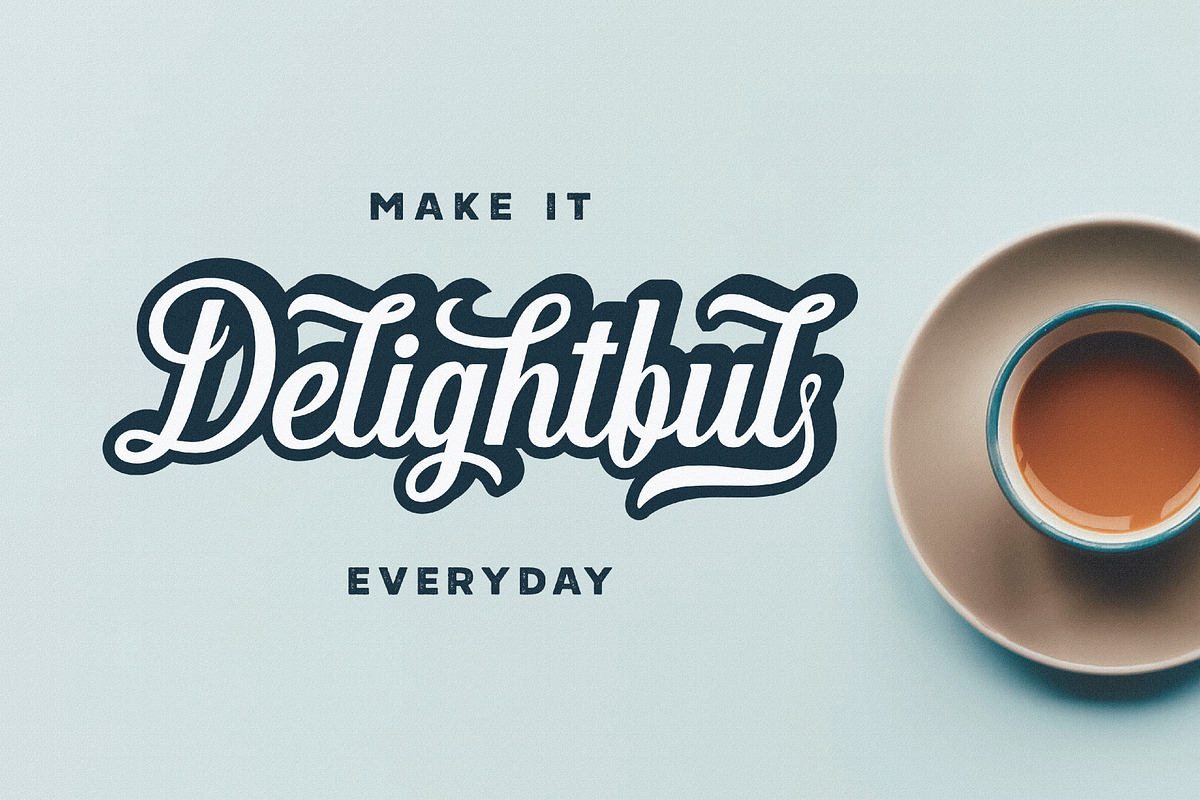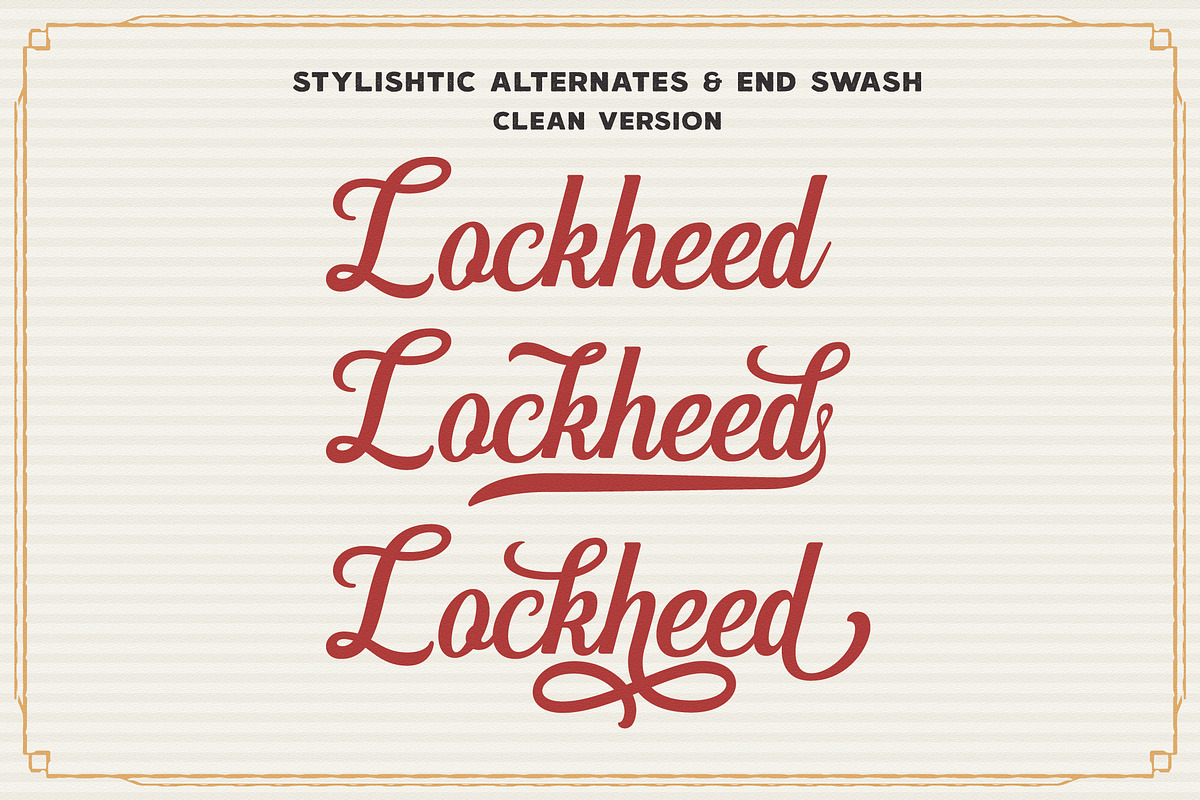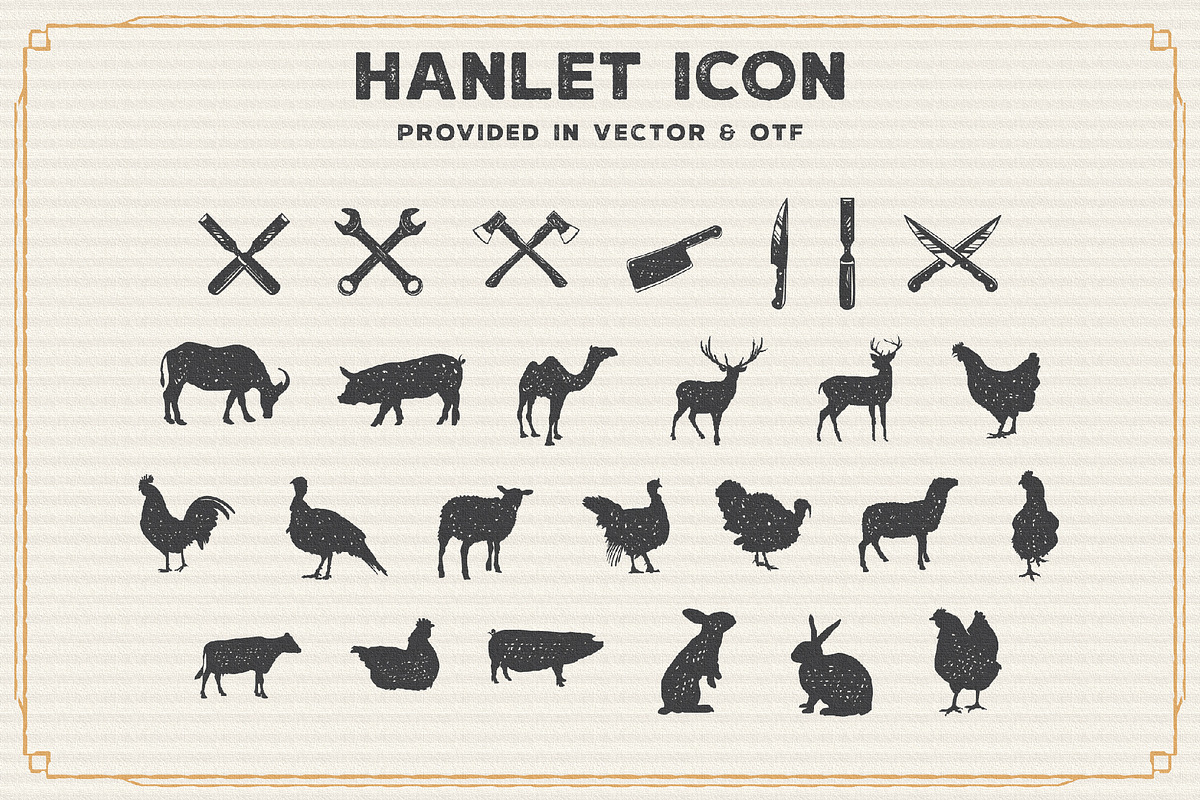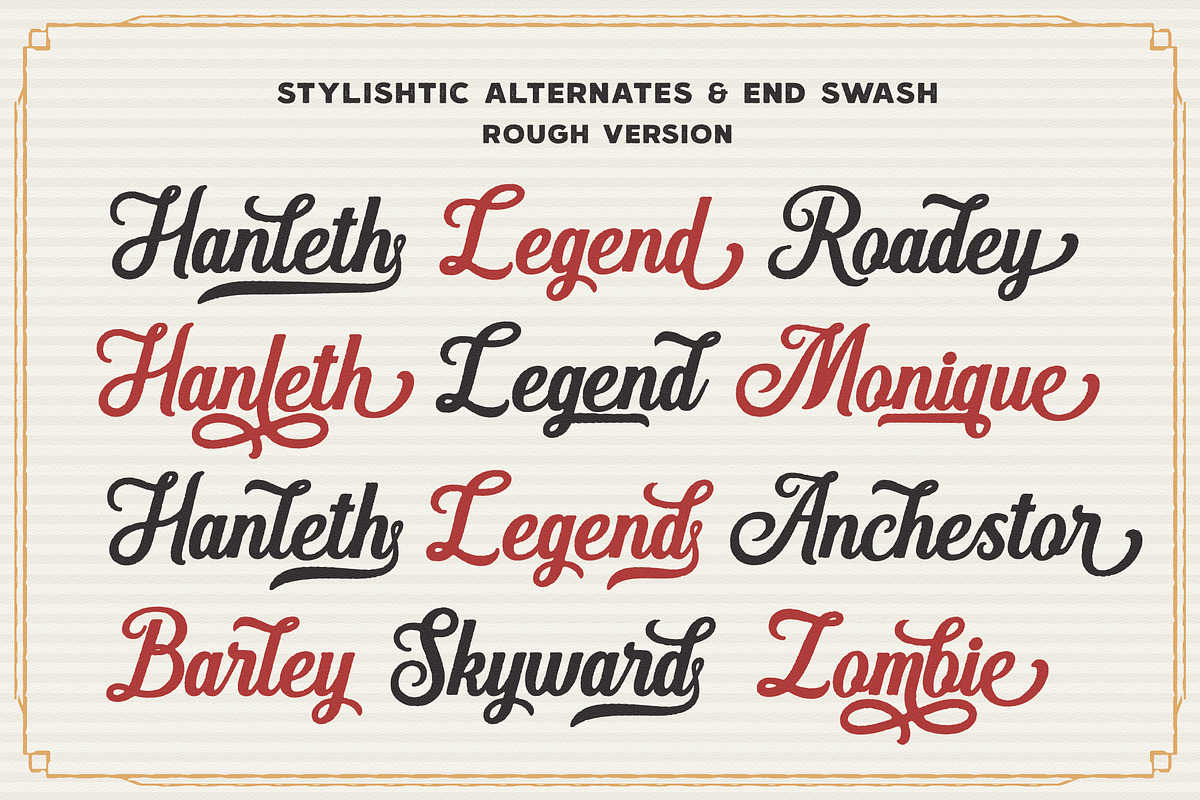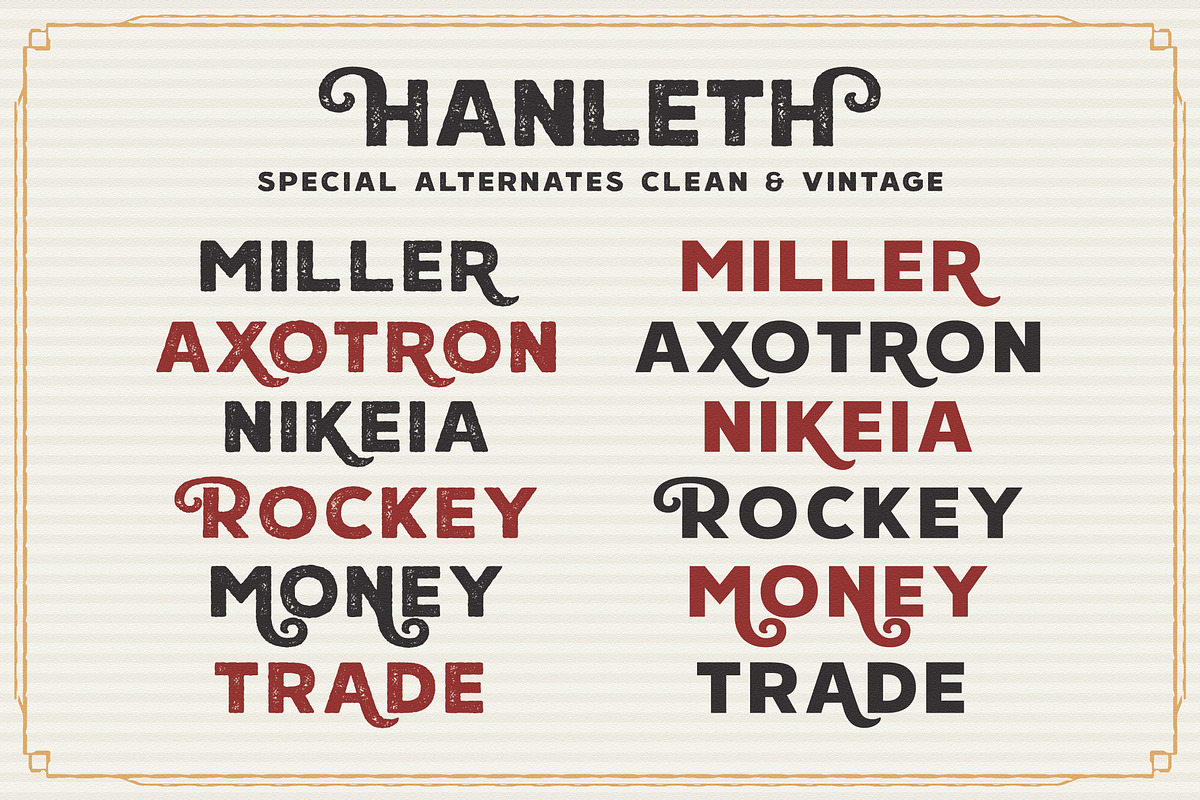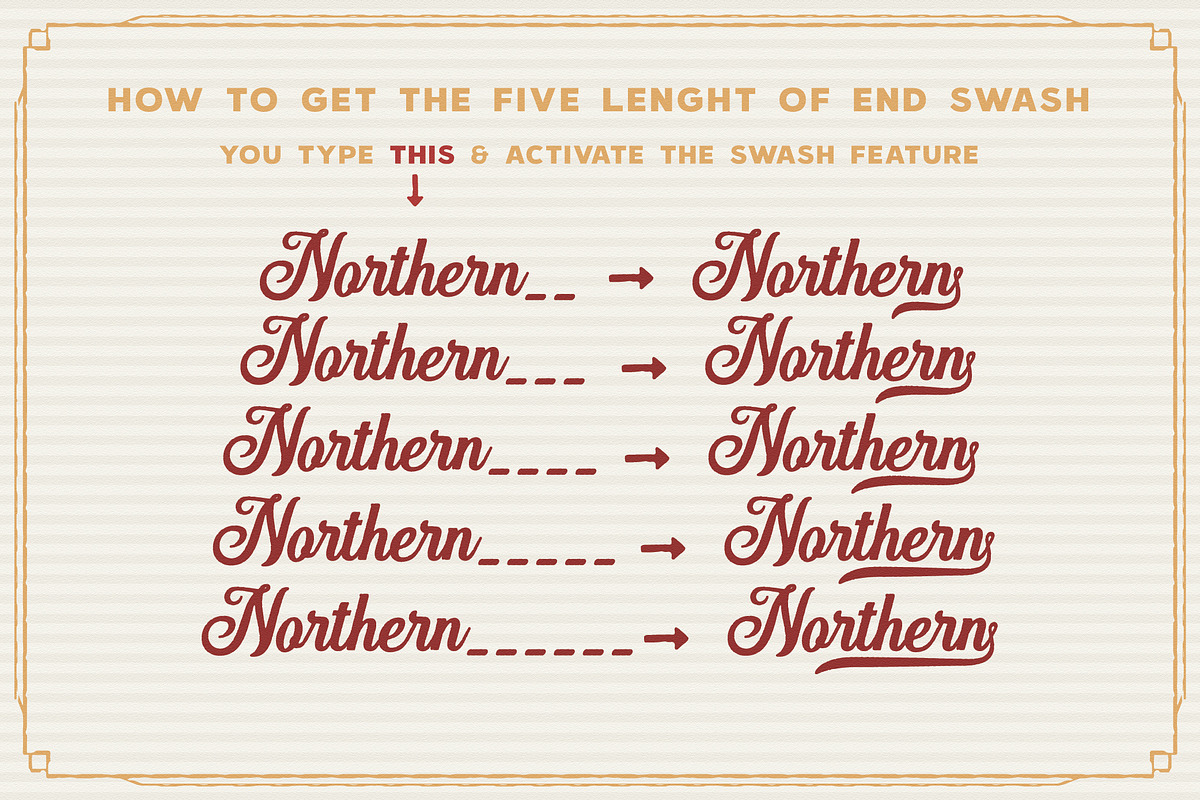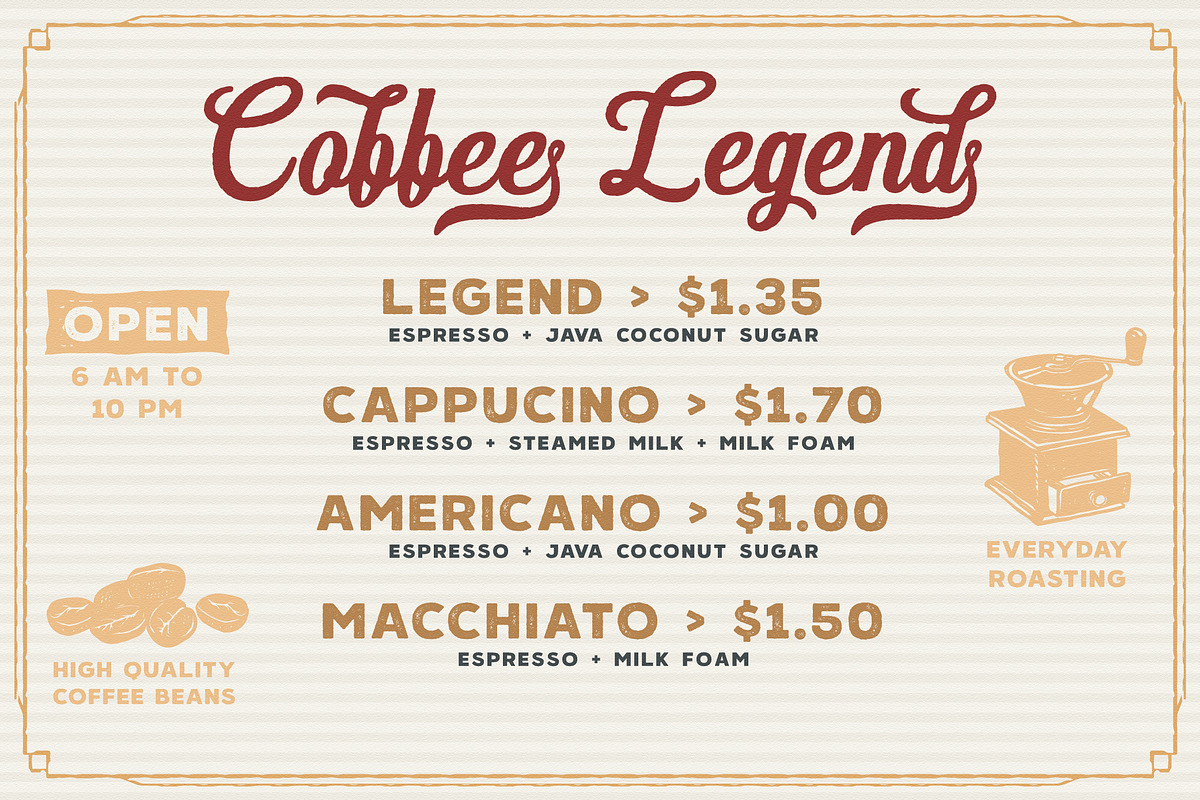
Hanleth vintage font duo
Hanleth fonts is a combination of script and all cap sans. Hanleth script comes with clean and rough version. Hanleth sans comes with clean and vintage rustic version. And also Hanleth comes with 52 vintage rustic icons. This duo font was made and inspired by old vintage script and polished with a little bit of modern style. Hanleth srcipt comes with some swash and alternates that make it looks unique and elegant. This package includes 12 editable logo. Hanleth fonts package is perfect to make logo, product packaging, header, poster, merchandise, social media & greeting cards.